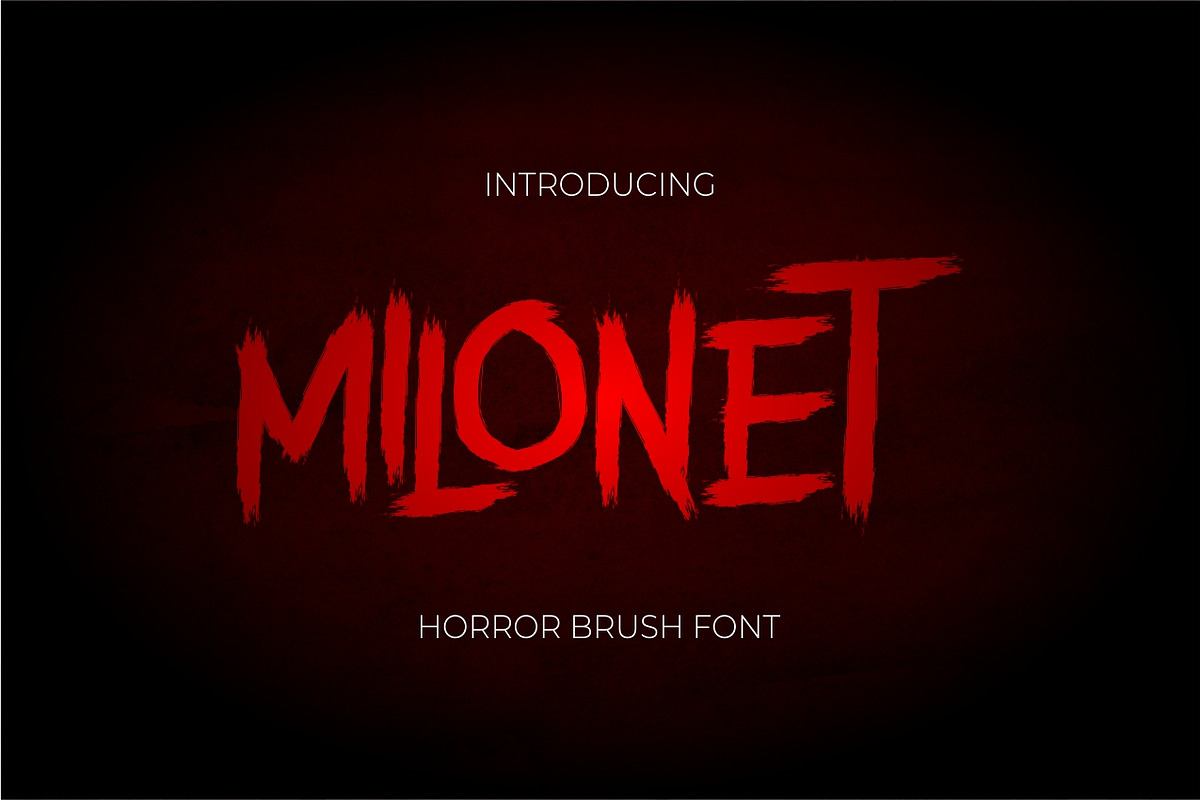
Milonet Horror Brush Font Free Download is a terrifyingly bold typeface that brings chaos, fear, and artistic intensity to your designs. Hand-drawn with aggressive brush strokes and raw texture, Milonet is perfect for horror movie titles, Halloween flyers, haunted house promotions, thriller book covers, and edgy apparel.
Its jagged lines and smeared ink effect give every letter a sense of urgency and dread—ideal for grabbing attention in any horror-themed or rebellious design. The handmade quality adds a gritty, real-world feel that elevates the eerie atmosphere.
Bring your scariest ideas to life with the raw energy and sinister style of Milonet.